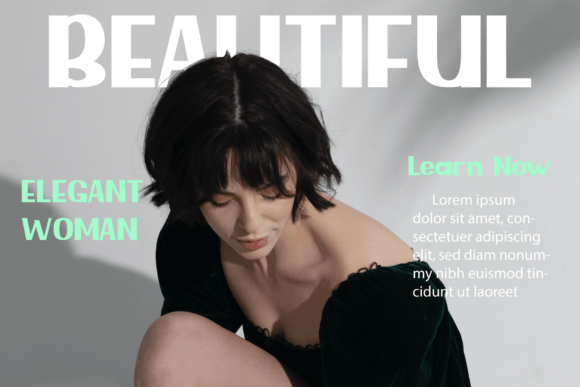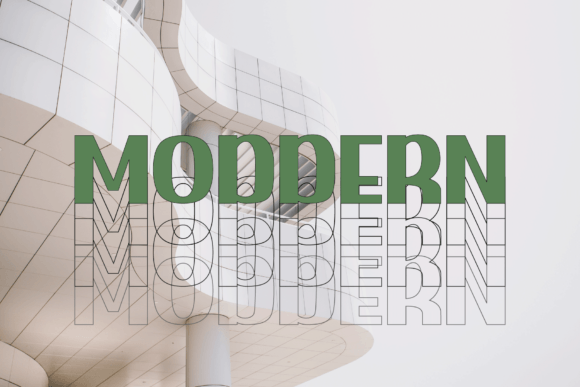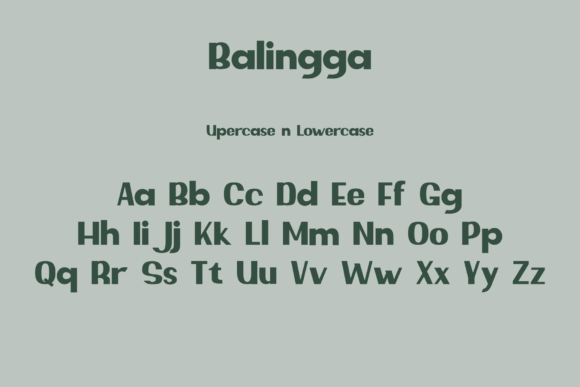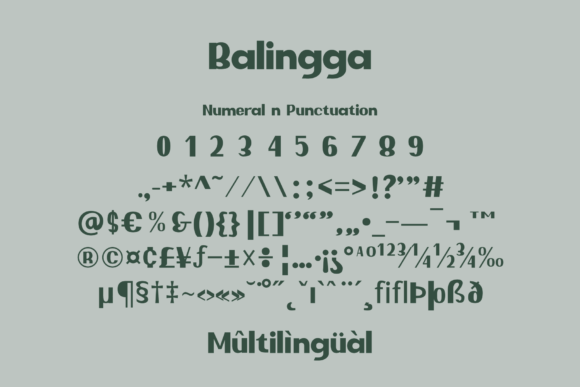
Balingga Font: Elevate Your Designs with a Neat and Stylish Sans Serif Font
In the world of design, fonts play a crucial role in conveying messages, expressing emotions, and creating visual identities. For designers and crafters, finding the perfect font can be a daunting task, especially when working on a specific project that requires a unique and stylish touch. This is where the Balingga font comes into play – a neat and stylish sans serif font that can enhance any creation. In this article, we’ll dive into the features, benefits, and uses of the Balingga font, and explore why it’s a wonderful asset to your font library.
What is Balingga Font?
Balingga is a modern sans serif font designed to provide a clean and elegant look to various design projects. Its simplicity and versatility make it an excellent choice for a wide range of applications, from branding and advertising to packaging and digital media. The font’s sleek lines, balanced proportions, and subtle curves create a visually appealing aesthetic that’s both professional and stylish.
Key Features of Balingga Font
- Neat and Stylish Design: Balingga’s sans serif design ensures a clean and minimalist look, making it perfect for designs that require a modern and sophisticated feel.
- Versatility: This font is suitable for various design projects, including logos, headings, body text, and more.
- Excellent Legibility: Balingga’s clear and balanced letterforms ensure excellent legibility, even at small font sizes.
Benefits of Using Balingga Font
So, why should you consider adding Balingga to your font library? Here are some benefits that make it a valuable asset:
- Enhance Your Designs: Balingga’s stylish and modern design can elevate your creations, making them more visually appealing and engaging.
- Save Time: With its versatility and legibility, Balingga can save you time and effort in finding the perfect font for your project.
- Consistency: Using Balingga across multiple projects ensures consistency in your brand’s visual identity.
- Unique Touch: Balingga’s distinctive design elements can add a unique touch to your designs, setting them apart from others.
Use Cases for Balingga Font
Balingga’s versatility makes it suitable for a wide range of design projects, including:
- Branding and Logo Design: Create a professional and stylish logo that represents your brand’s identity.
- Advertising and Marketing Materials: Use Balingga in brochures, flyers, posters, and other marketing materials to create visually appealing designs.
- Packaging Design: Add a touch of elegance and sophistication to your product packaging with Balingga.
- Digital Media: Use Balingga in website designs, social media graphics, and other digital media to create a consistent visual identity.
In conclusion, the Balingga font is a valuable asset to any designer’s font library. Its neat and stylish sans serif design, versatility, and legibility make it an excellent choice for various design projects. Whether you’re working on branding, advertising, packaging, or digital media, Balingga can enhance your creations and provide a unique touch. With its cross-platform compatibility and ease of use, Balingga is a font that’s definitely worth considering for your next design project.